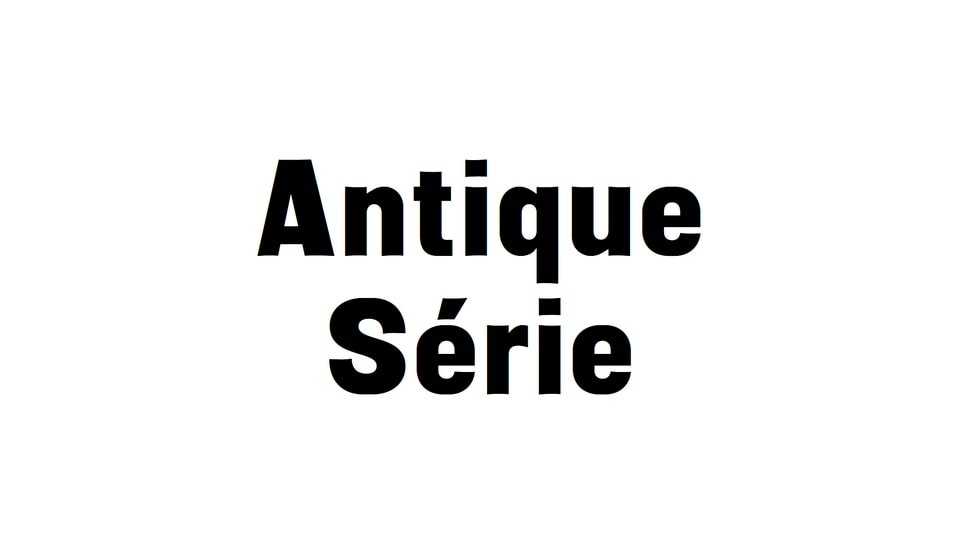
Download Antique Série font, a sans serif typeface based type specimen from the Jacoby & Fils printing house in Grenoble. With clean lines and a timeless aesthetic, the font captures the essence of the industrial era, providing a perfect blend of legibility and historical charm.
Designer: Romain Laurent